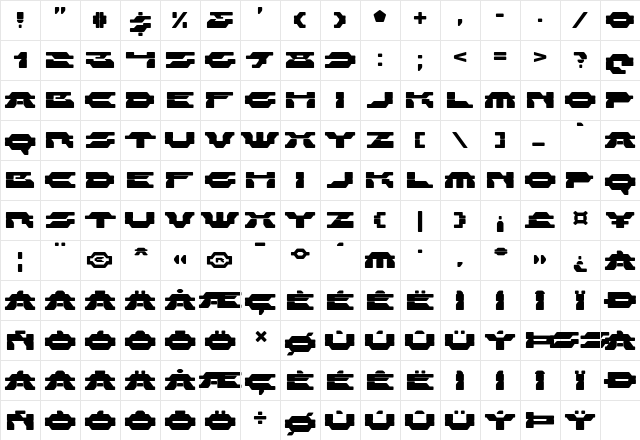
Zelega Zenega Regular
Design Context for Zelega Zenega Typeface
Zelega Zenega is a composed and adaptable typeface that performs quietly and consistently across a wide range of design contexts.